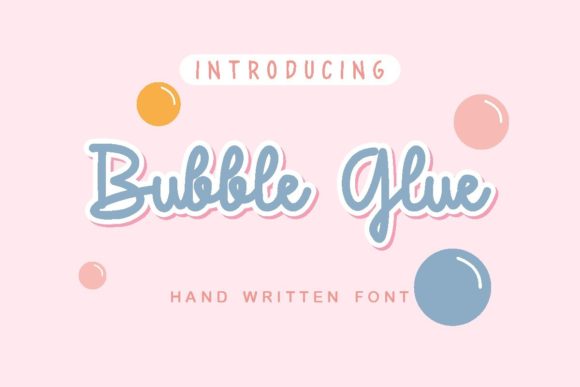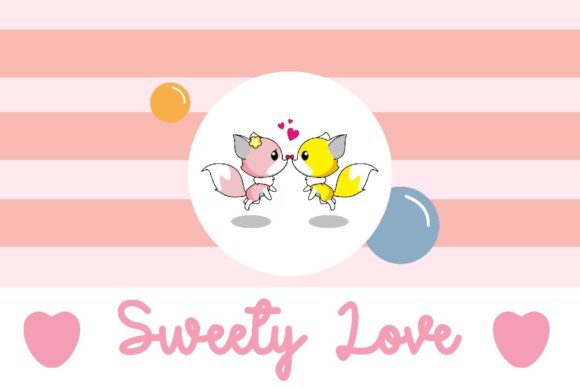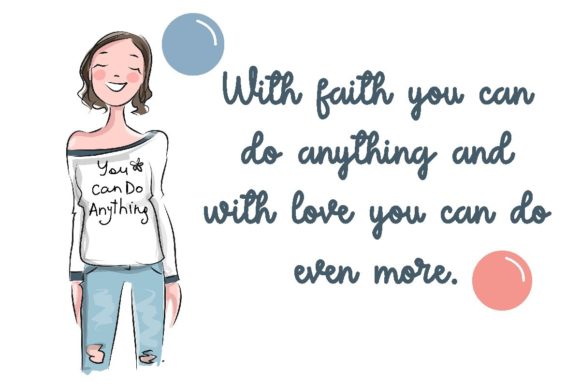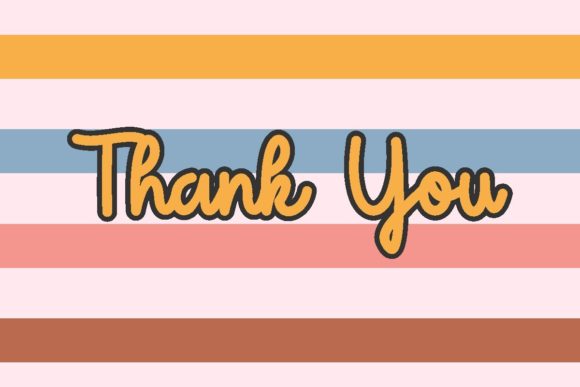
Bubble Glue Font
About Bubble Glue Font
Bubble glue feels equally charming and elegant. This stunning handwritten font is a stylish homage to classic calligraphy. It will elevate a wide range of design projects, be it branding, headings, wedding designs, invitations, and so much more!